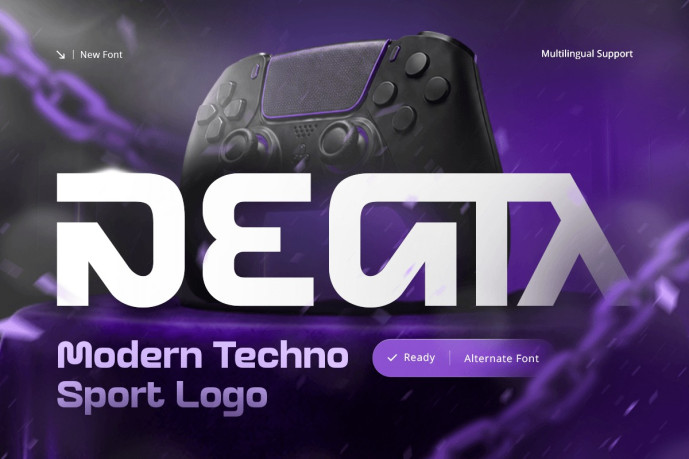
Degta Font
Degta – Modern Techno Sport Logo Font is a futuristic techno sport font designed for racing branding, motorsport logos, automotive graphics, gaming identities, and technology-driven visual communication. Inspired by high-performance engineering, digital innovation, and competitive sports, Degta combines bold typography with a sleek futuristic aesthetic to create memorable and impactful brand identities.
Featuring sharp geometric letterforms, dynamic angles, and modern techno-inspired details, Degta delivers a powerful visual presence that reflects speed, precision, and innovation. Its distinctive structure makes it ideal for logo design, branding systems, display headlines, and promotional graphics that demand attention.
Whether you’re designing a motorsport logo, creating an automotive brand, developing esports graphics, or launching a technology startup, Degta provides the modern typography needed to communicate energy, performance, and cutting-edge design.
Degta Font Features
Character Set: Uppercase, lowercase, numbers, symbols, and punctuation
Modern techno sport letterforms optimized for logo design and branding